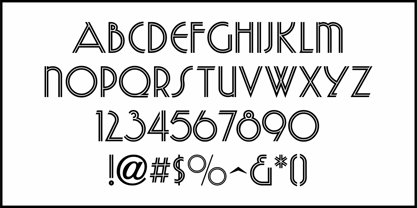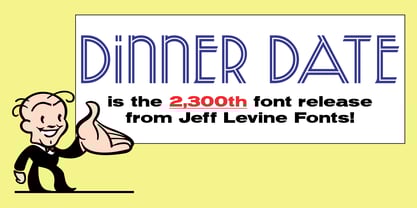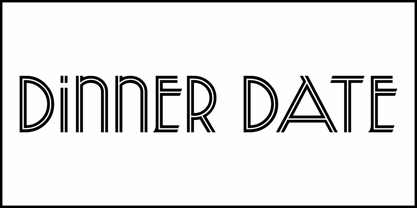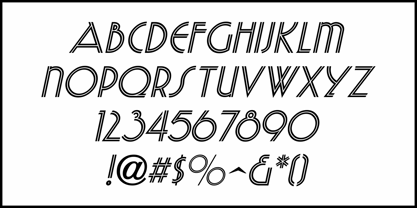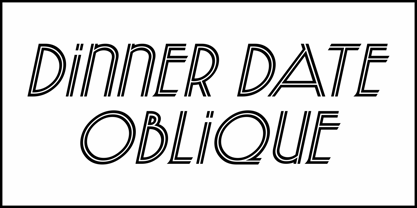
Dinner Date JNL
A 1932 book entitled "The Design of Lettering" by Egon Weiss showcases an Art Deco type style called 'Parisian Elite'which was attributed to Clarence Hornung. This elegant dual line sans display face has been digitally redrawn as Dinner Date JNL and is available in both regular and oblique versions; featuring alternate characters on the lower case 'e','i,'j','o' and 's' keys. Dinner Date JNL is the 2,300th font released by Jeff Levine Fonts since its inception in January of 2006.